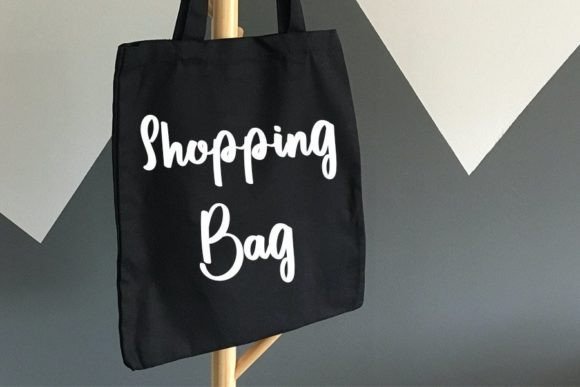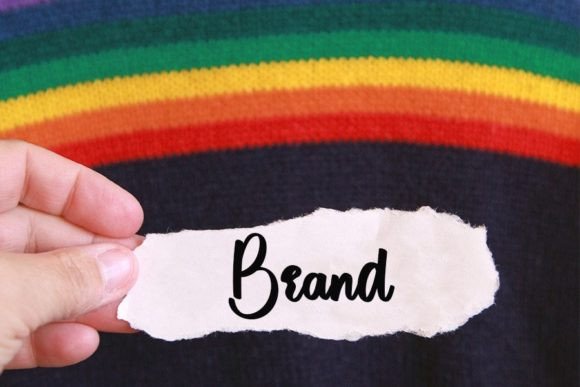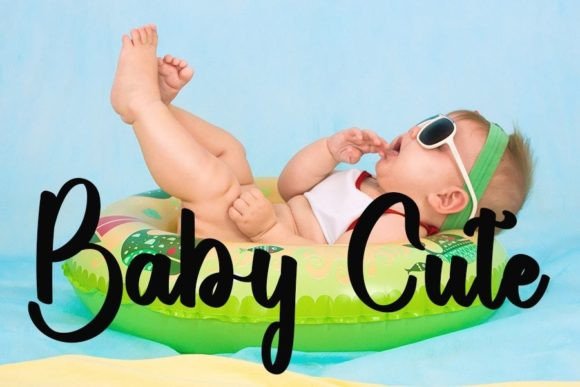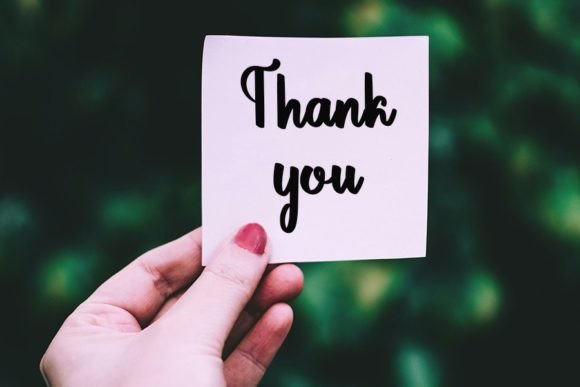
The Daily Delight: Uncovering the Charm of Daily Font
I’ll never forget the time I was working on a project for a client who wanted a font that was both elegant and playful. I spent hours scouring the internet for the perfect match, but nothing seemed quite right. That was until I stumbled upon Daily Font. Its unique blend of sophistication and whimsy instantly won me over, and I knew I had found the perfect fit. In this article, I’ll share my love for Daily Font, its features, and how to make the most of it in your designs.
An Honest Review of Daily Font
So, what makes Daily Font so special? Here are a few things I love:
- ✨ Elegant and refined: Daily Font has an undeniable air of sophistication that makes it perfect for high-end projects.
- ✅ Timeless style: Unlike trendy fonts that quickly go out of style, Daily Font’s classic look ensures it will remain relevant for years to come.
- 💫 Distinctive character: Daily Font’s unique personality shines through in every letter, making it an excellent choice for projects that need a bit of flair.
Of course, no font is perfect, and Daily Font has a few minor quirks:
- 🤔 Limited multilingual support: While Daily Font covers the basics, it may not be the best choice for projects requiring extensive multilingual support.
- ⚠️ Occasional kerning issues: As with any font, you may encounter some kerning issues, especially when using it at smaller sizes.
The Story Behind Daily Font
According to its creators, Daily Font was inspired by the beauty of handwritten letters and the need for a modern, elegant font that could be used in a variety of contexts. The designers behind Daily Font aimed to create a font that was both refined and approachable, perfect for projects that require a touch of sophistication.
| Font Name | Daily Font |
| What makes Daily Font unique? | Daily Font’s unique blend of elegance and playfulness makes it stand out from other fonts. |
| Is Daily Font suitable for body text? | While Daily Font is beautiful, it’s best suited for headings and titles. For body text, consider a more readable font. |